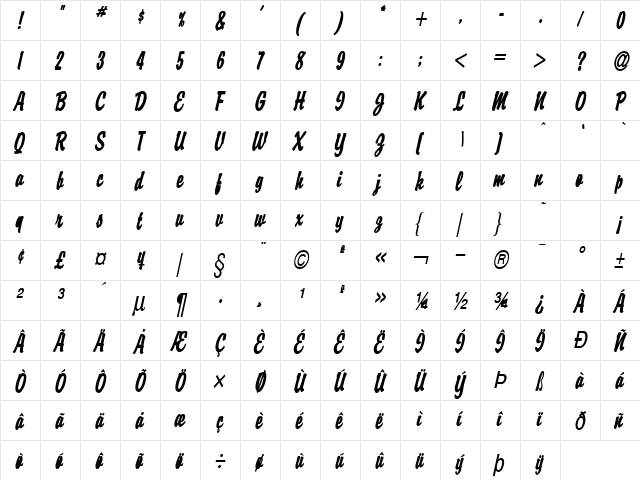
Brisk BoldItalic Font Preview
Design Context for Brisk Typeface
Brisk takes a measured approach to typography — its balanced proportions and neutral character make it a reliable workhorse for both digital and print work. The dynamic lean of this cut emphasises speed and emphasis in any layout. The heavy weight commands attention and anchors typographic hierarchies.
Pro Tip: Try Brisk for annotation and caption copy alongside an upright companion — the contrast in angle creates a dynamic but ordered typographic system.